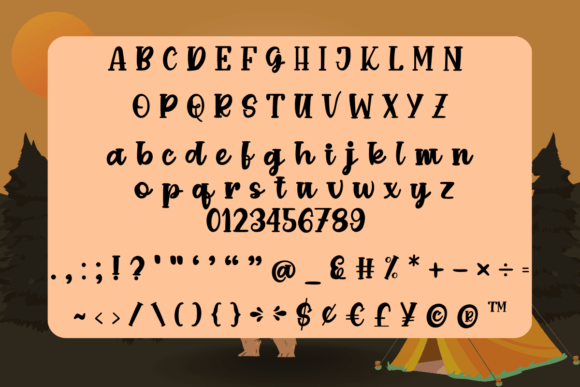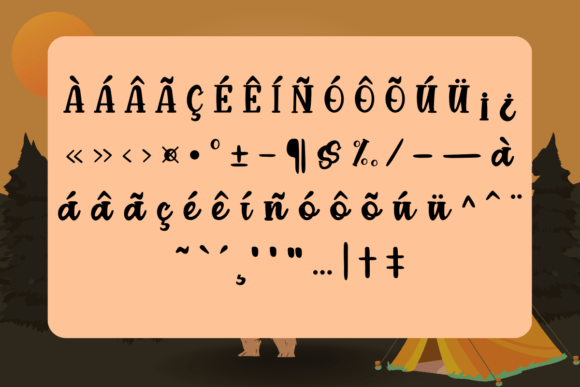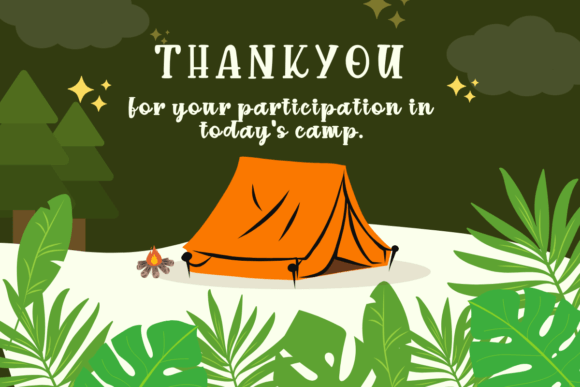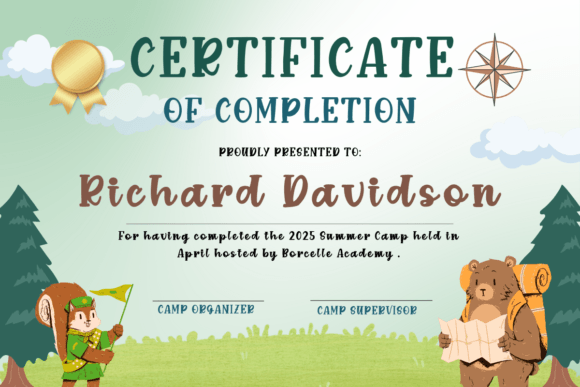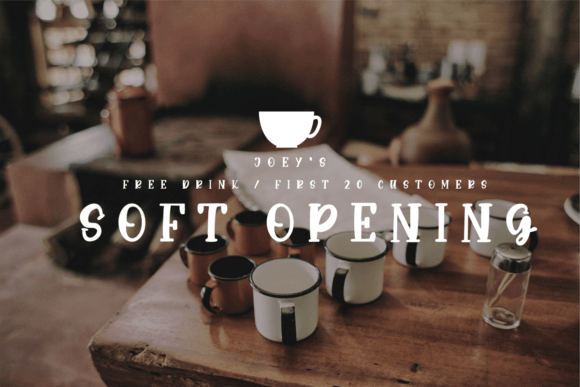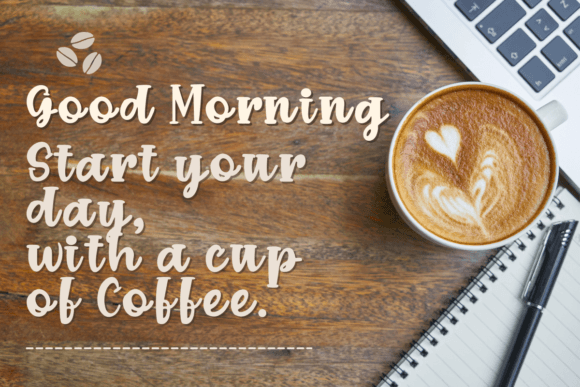
The Great Outdoors, In Type: Discovering the Charm of Camping Font
An Honest Review of Camping Font
• ✨ Unique and Handwritten Style: Camping Font boasts a natural, handwritten look that’s perfect for creating a personal touch in designs.
• ✅ Versatility: Its adaptability knows no bounds – from camping and outdoor projects to branding, packaging, and more.
• 💡 Easy to Read: Despite its playful nature, Camping Font remains highly legible, making it suitable for both headlines and body text.
While Camping Font is an excellent choice, there are a few minor considerations to keep in mind:
• ⚠️ Limited Formality: Due to its handwritten nature, Camping Font might not be the best fit for projects requiring a high level of formality or professionalism.
• 🤔 Overuse of Swashes: Be cautious not to overuse the font’s swashes and stylistic alternates, as this can make the text harder to read.
The Story Behind Camping Font
Camping Font was designed with the great outdoors in mind. Its creator aimed to capture the friendly, adventurous spirit of camping and the natural world. The result is a font that’s perfect for any project that requires a personal, approachable touch.
Font Name Camping Font
Author Natchuta
Q: What makes Camping Font unique?
A: Camping Font’s unique, handwritten style and natural look make it stand out from other fonts. Its versatility and readability add to its charm.
Q: Is Camping Font suitable for body text?
A: While Camping Font is primarily designed for headlines and titles, its readability makes it suitable for short blocks of body text. However, for longer texts, a more traditional font might be more suitable.